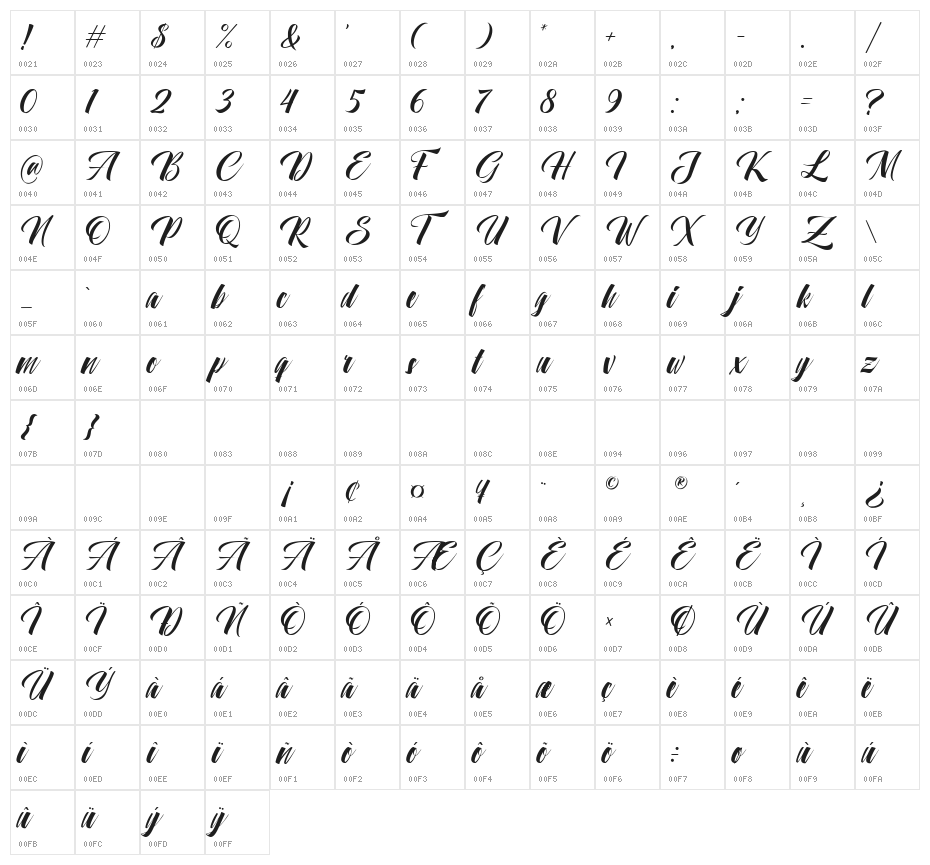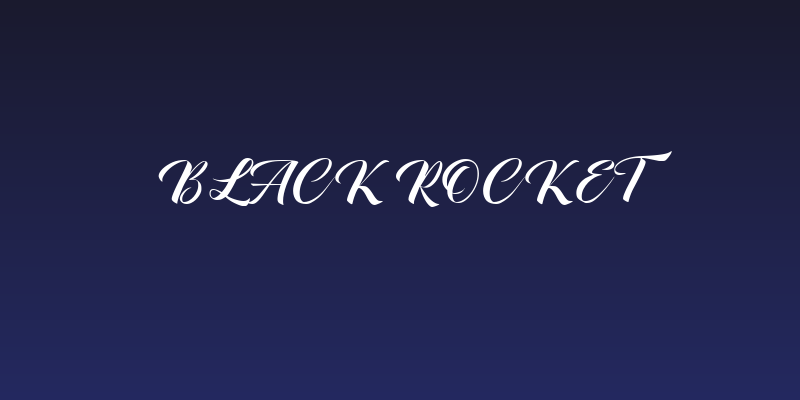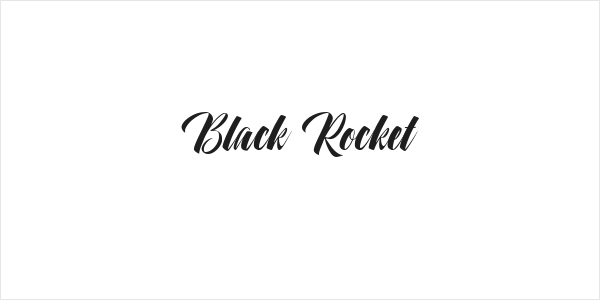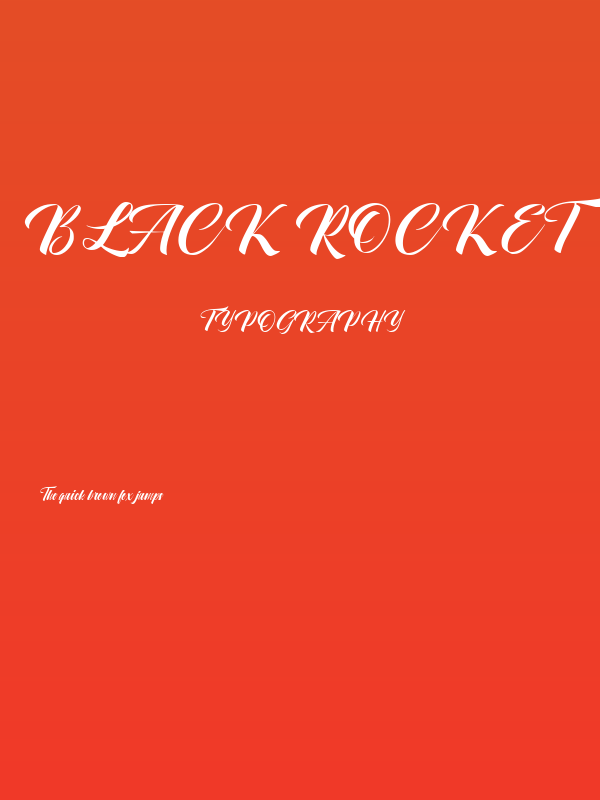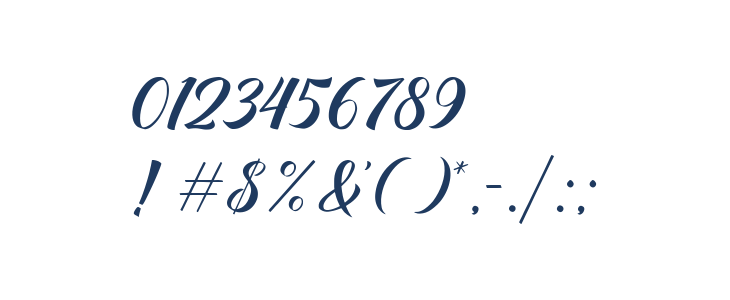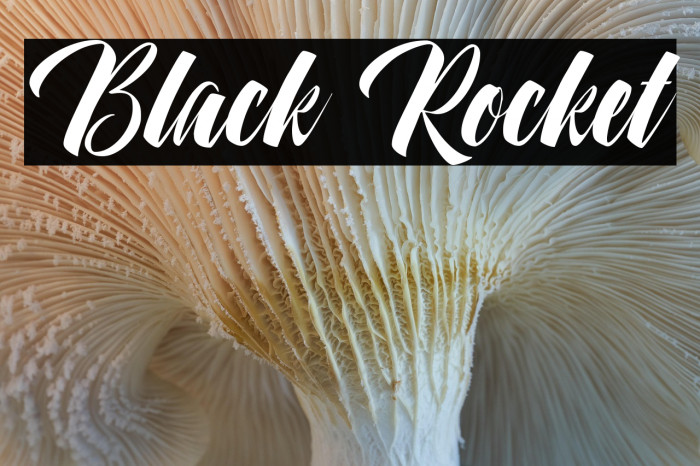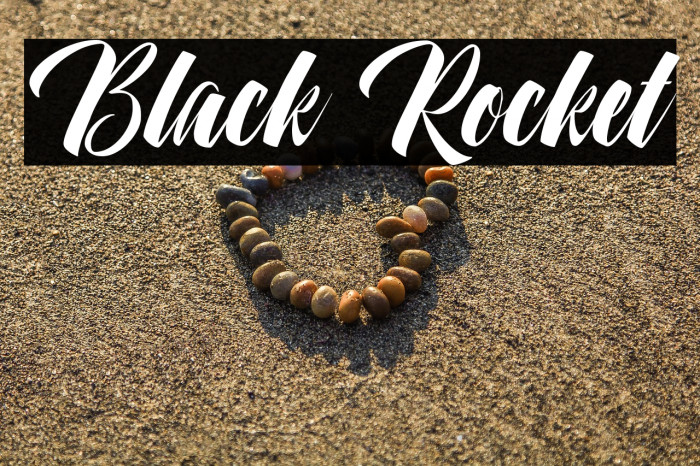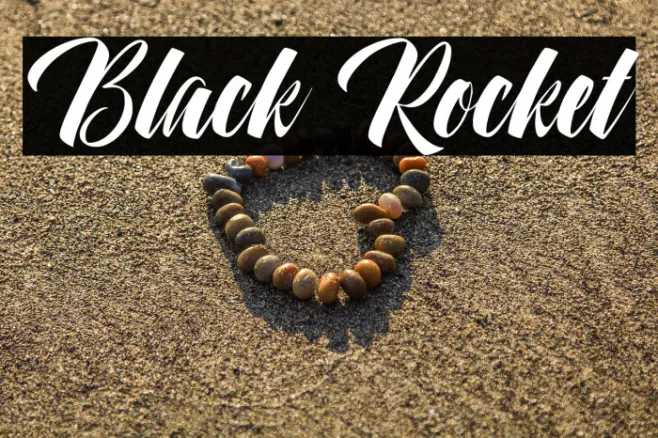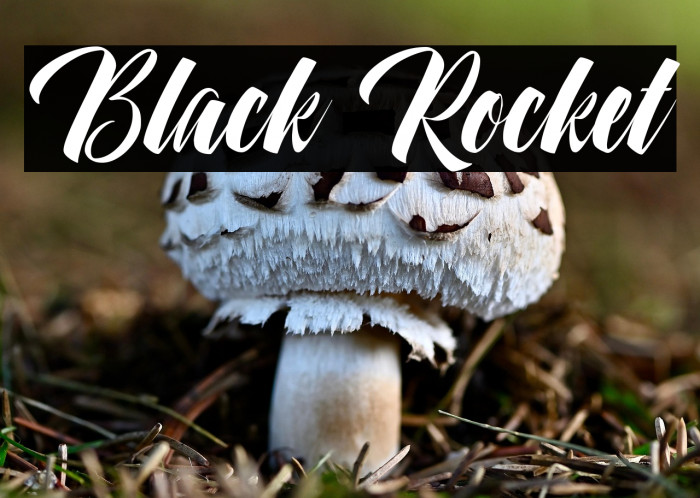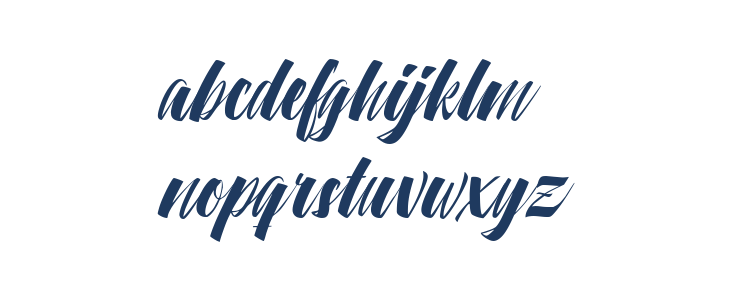
Black Rocket Font
Black Rocket Description
This font features an elegant and dynamic script style, characterized by its flowing, cursive letterforms. The uppercase letters exhibit a sophisticated flair with sweeping ascenders and descenders, while the lowercase letters maintain a consistent rhythm and fluidity. The numerals are designed with a similar cursive style, ensuring cohesion across all characters. Special characters are crafted with the same attention to detail, enhancing the font's overall aesthetic. The strokes are bold and confident, with a slight slant that adds to the font's energetic and stylish appearance.